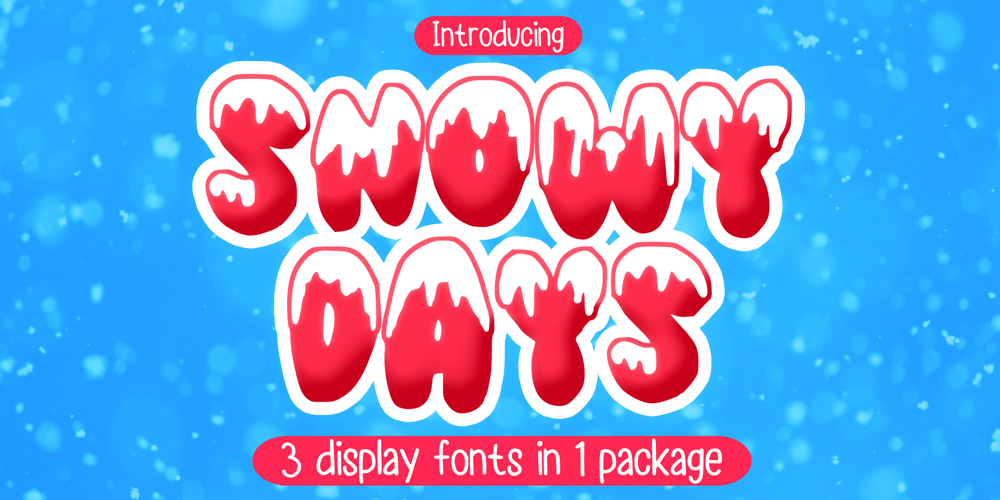
Snowy Days
Snowy Days font
Snowy Days Font Family was designed by Gabriel Valentinus and published by Mvmet. Snowy Days contains 3 styles and family package options. Snowy Days is a cool and playful snow-themed display font. The font is awesome for creating cool designs that scream for attention. It’s ideal for anything ranging from t-shirts, book designs, restaurant menu, blog writing, greeting cards to stickers, or anything that needs a casual touch. Fall in love with its incredibly cool style, and use it to create lovely designs!